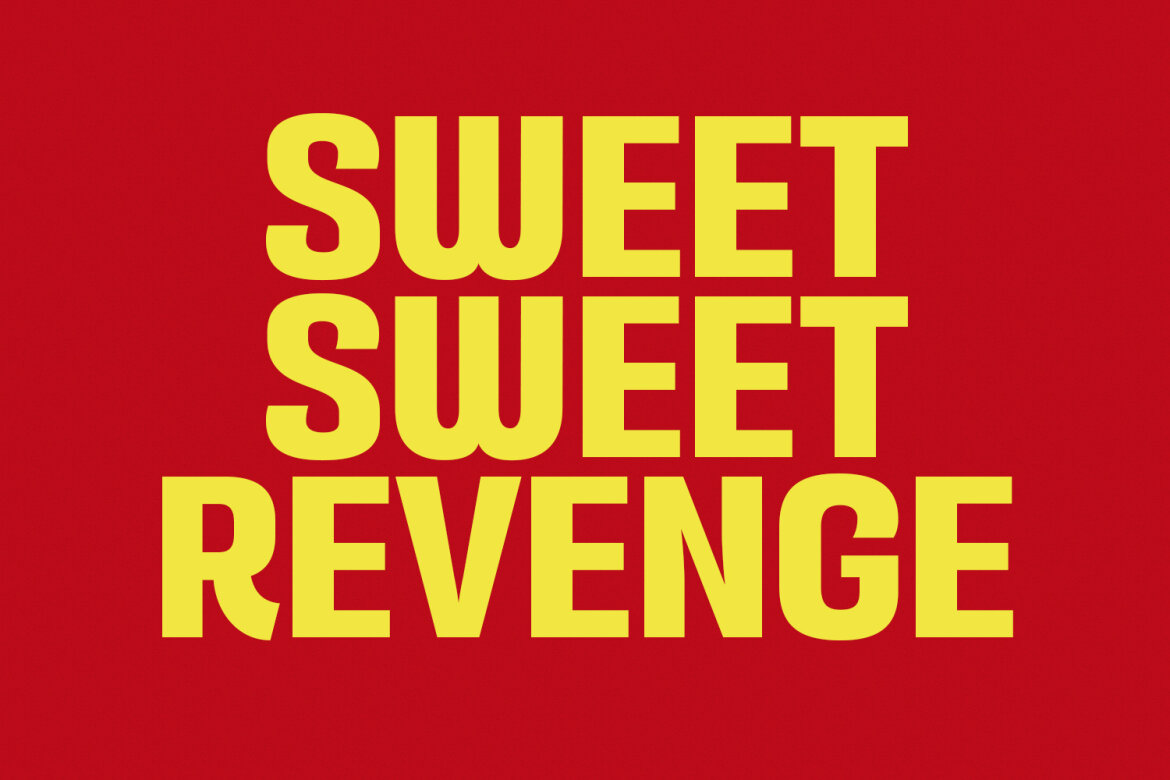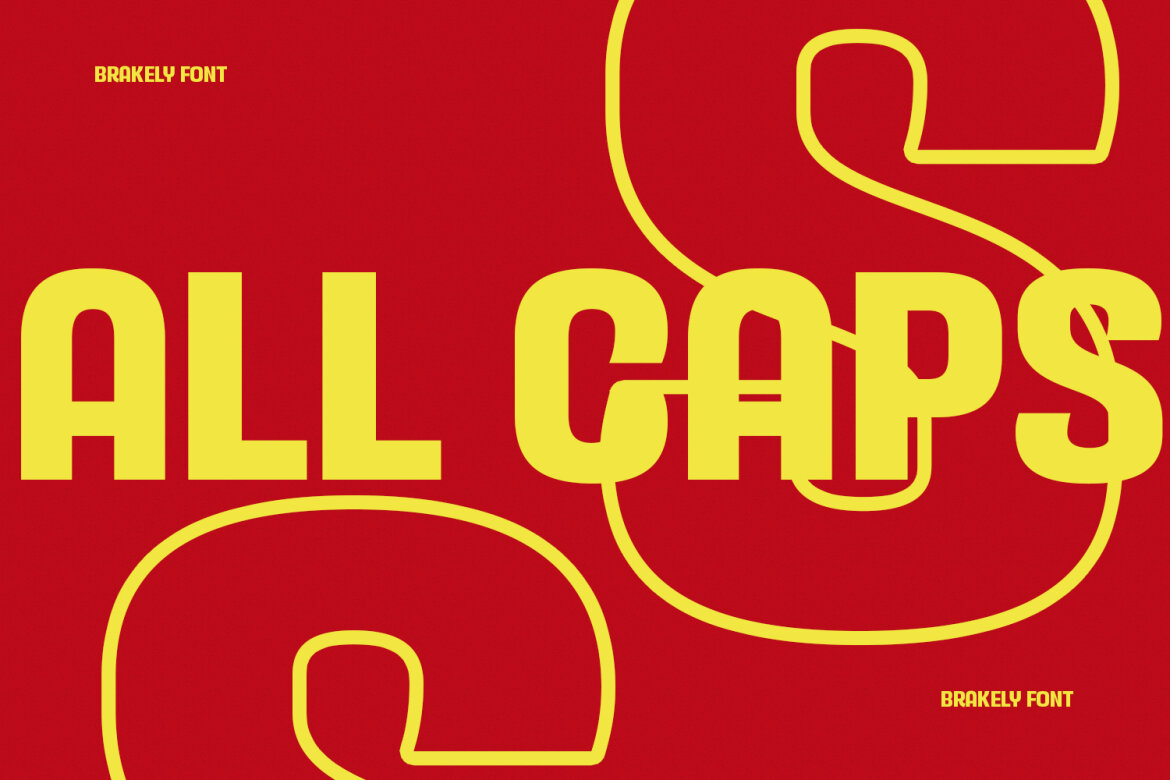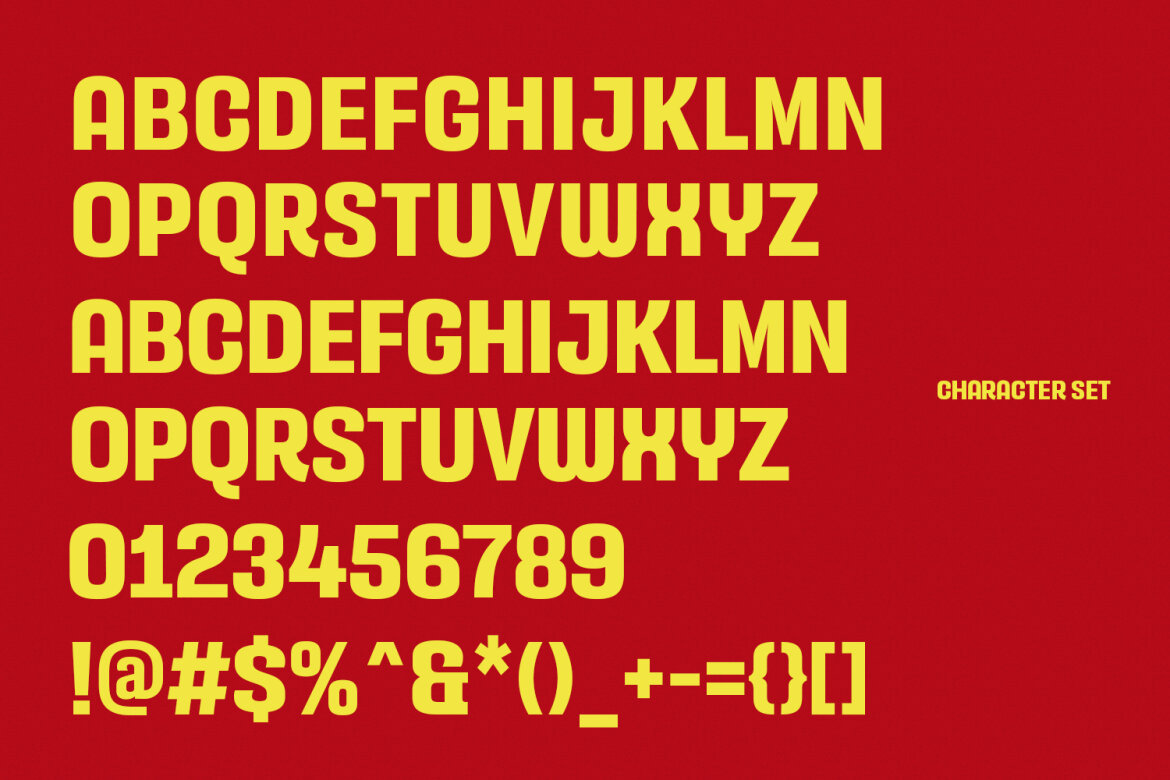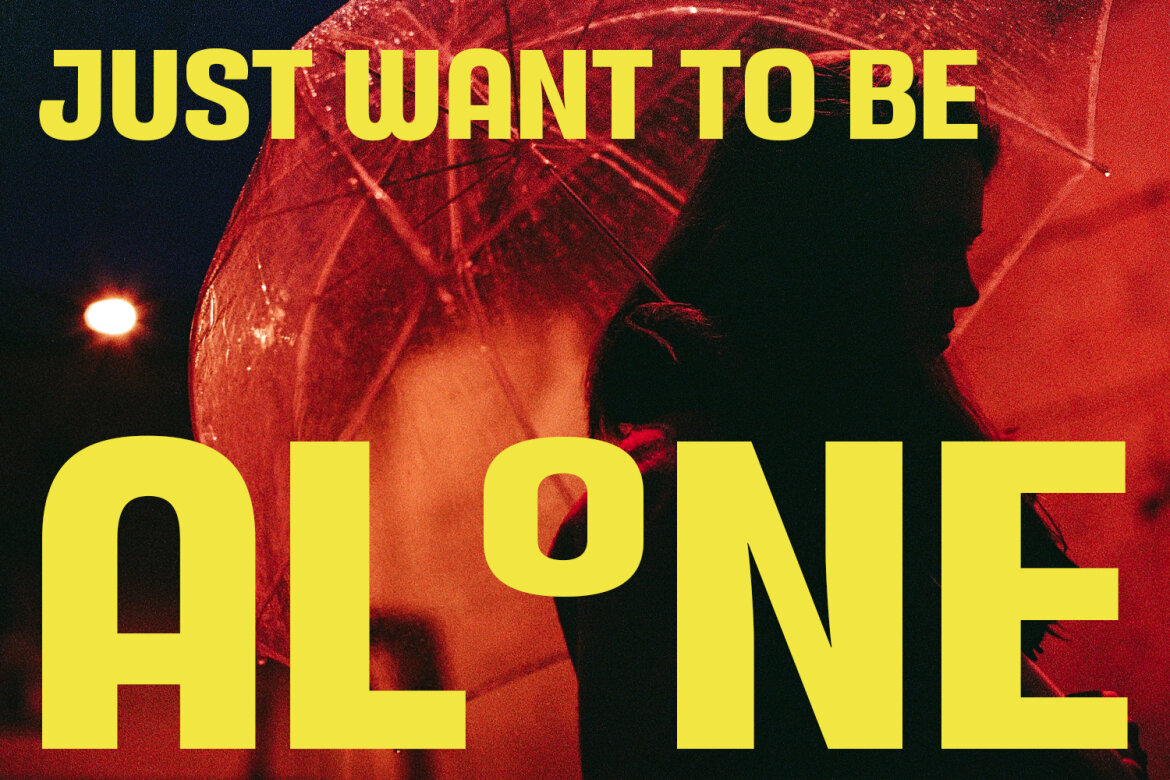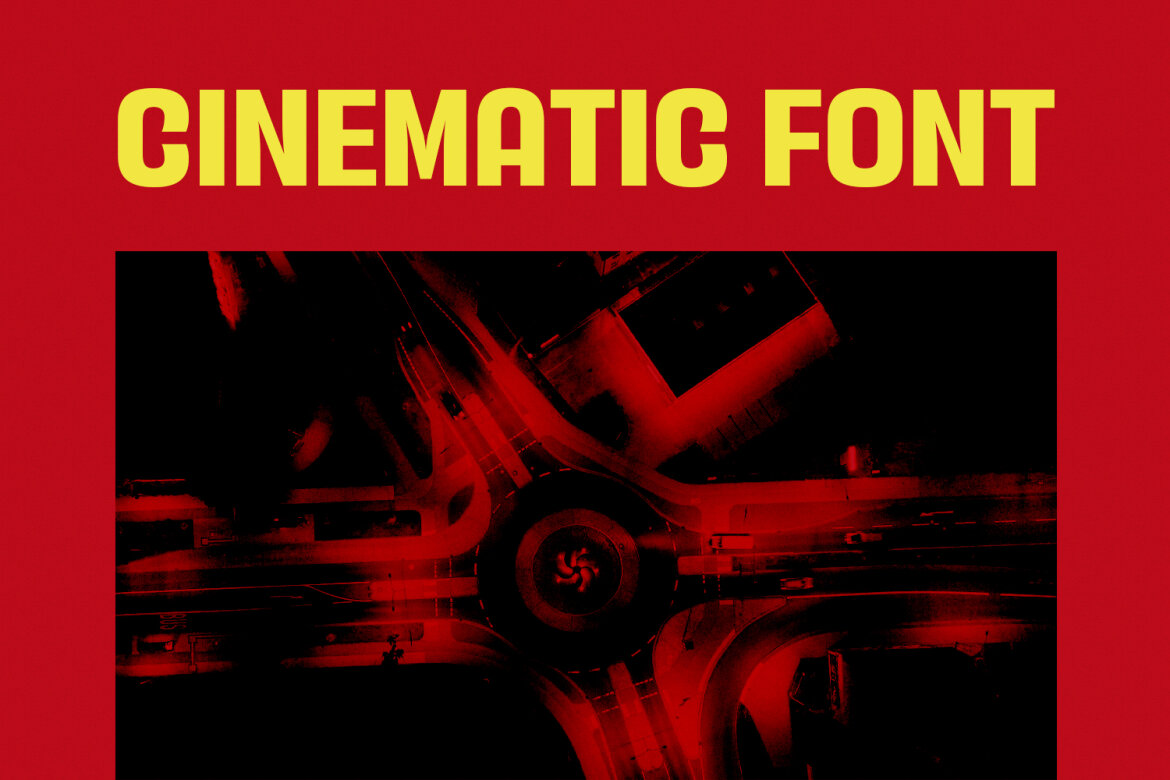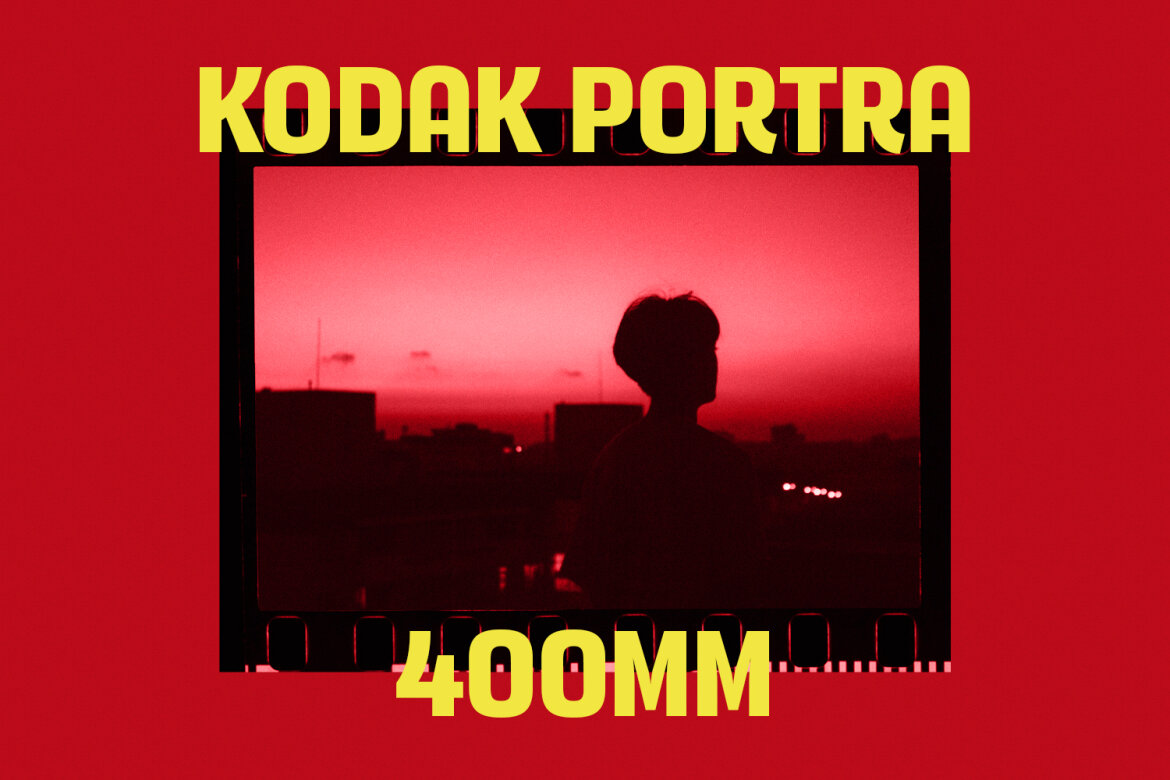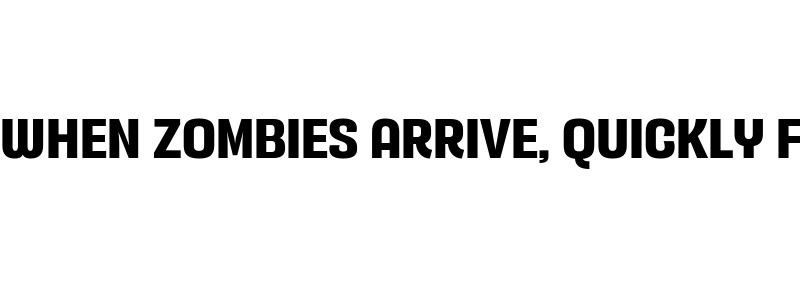
Brakely Sans FREE Font
Brakely is a semi humanist sans Display font. ExtraBold stroke, fun character with a bit of ligatures and alternates. To give you an extra creative work. Brakely font support multilingual more than 100+ language. This font is good for logo design, Social media, Movie Titles, Books Titles, a short text even a long text letter and good for your secondary text font with script or serif. Make a stunning work with Brakely font.